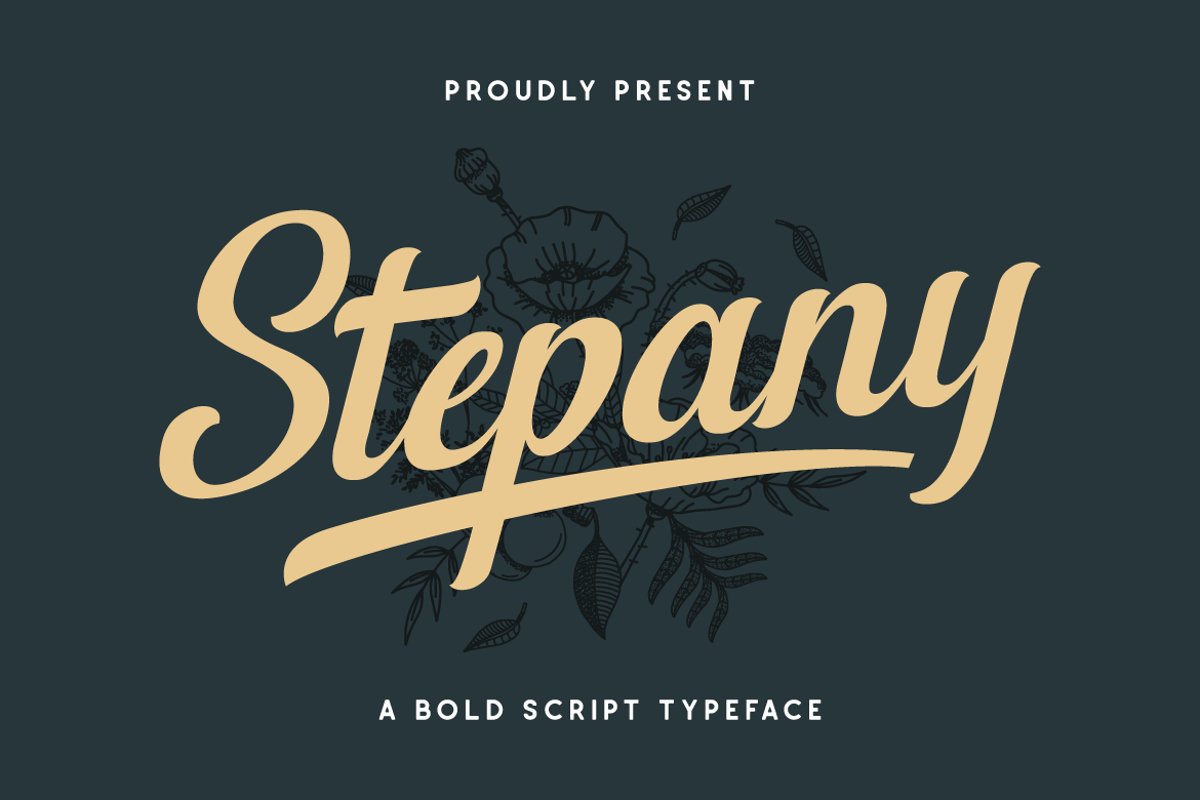
Stepany is a hand-lettering brush script font with natural nuance. This font designed to be clear and easy to read with a friendly personality. It matches applies in some designs such as the logotype, poster, packaging, branding, quotes, badge and more custom design. The features uppercase, lowercase, numeral, punctuation & symbol.